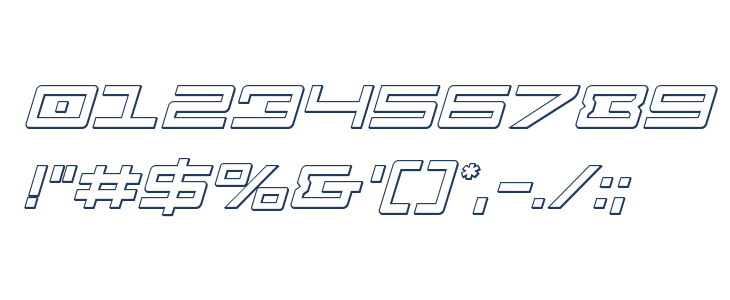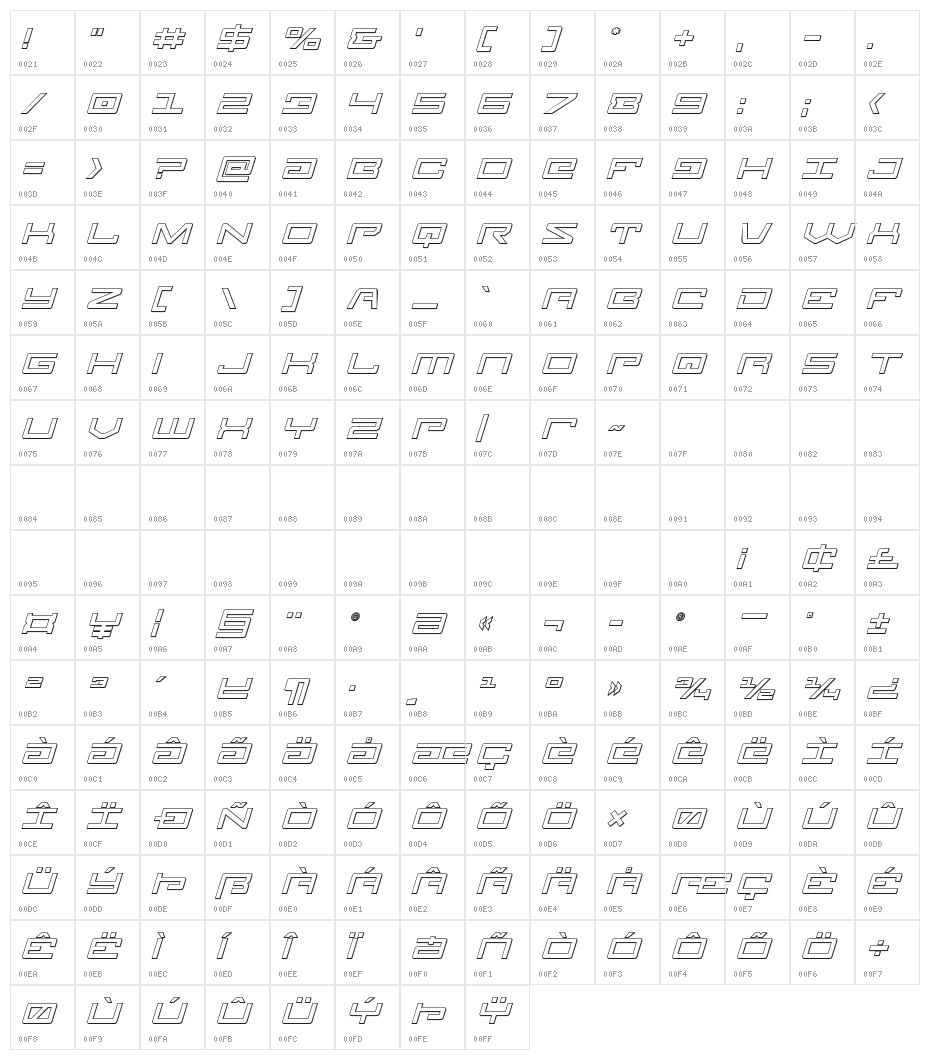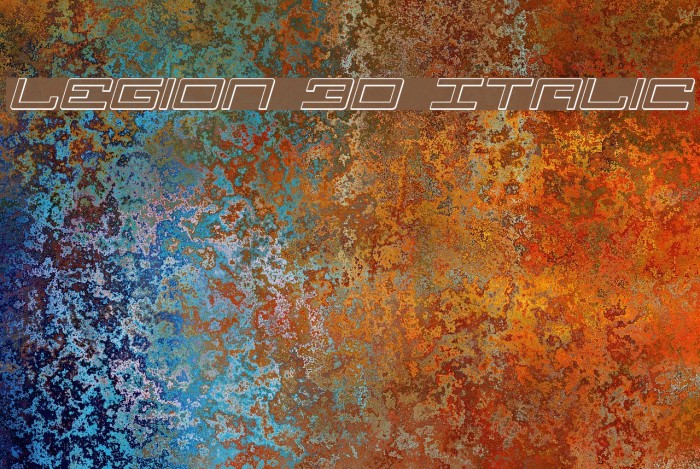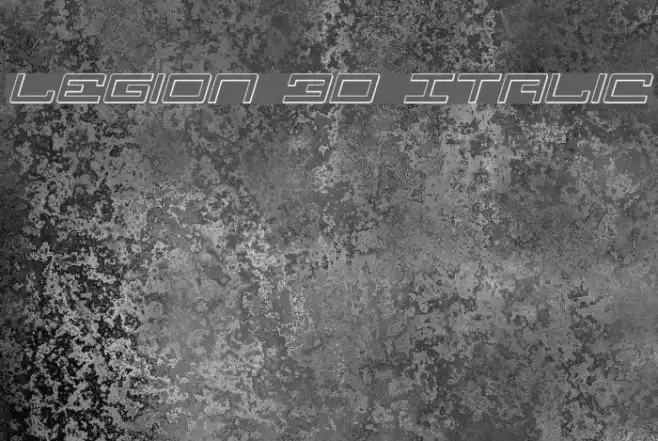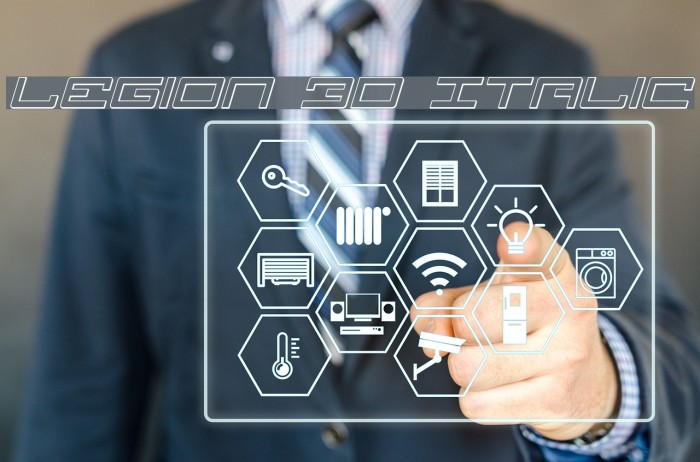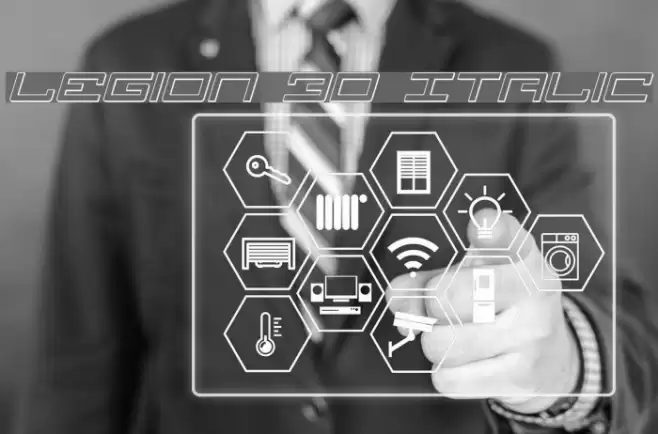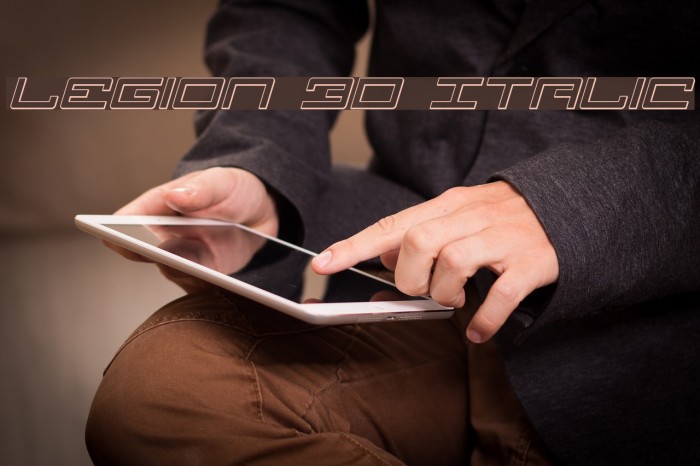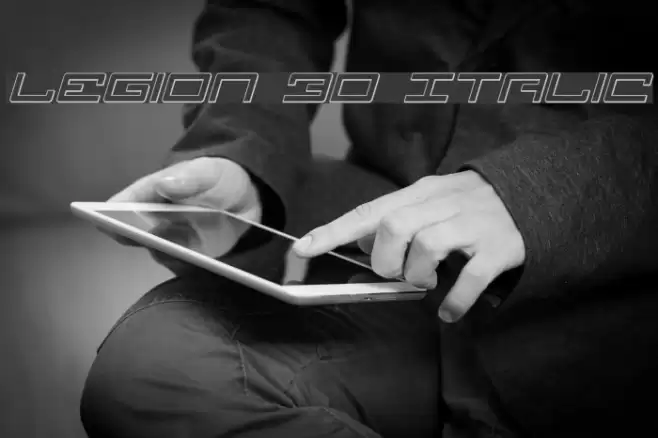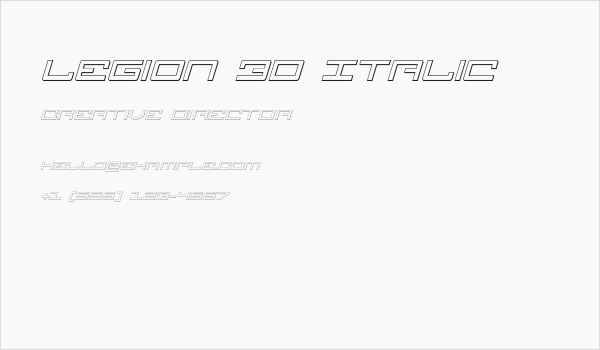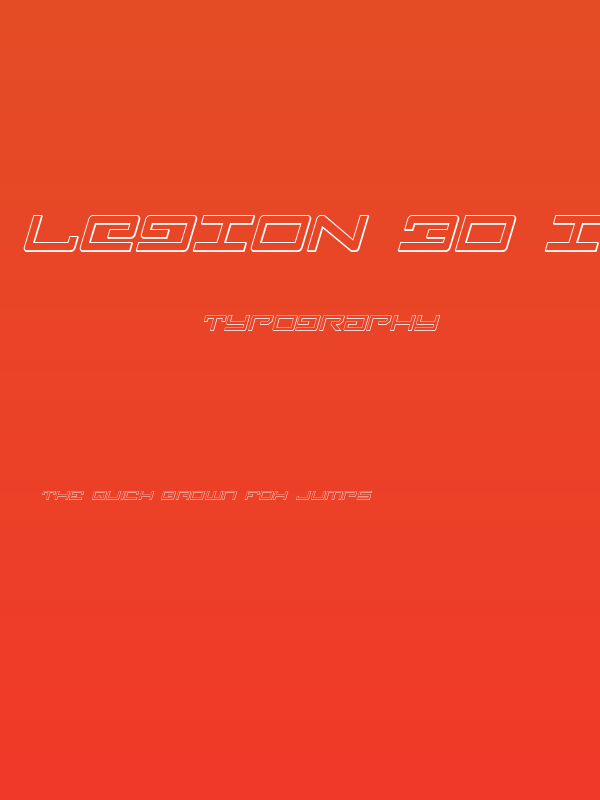
Legion 3D Italic Font
Legion 3D Italic Description
This font features a futuristic and three-dimensional design, characterized by its bold, geometric shapes and italicized slant. The letters are outlined, giving them a hollow appearance that enhances the 3D effect. Each character is constructed with precision, featuring sharp angles and clean lines that contribute to its modern aesthetic. The font's unique style makes it stand out, with a consistent stroke width that maintains uniformity across all characters. The spacing between characters is normal, allowing for readability while maintaining its distinct look. This font is ideal for projects that require a contemporary and eye-catching design.
| Proposed Projects | Ideal for sci-fi themed designs, video game graphics, tech branding, and modern posters. |